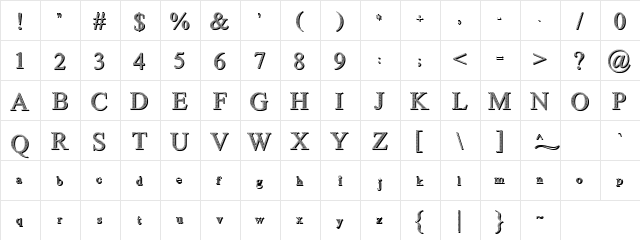
Candy_Girl_ Regular
| Foundry | Mighty Pete |
Design Context for Candy_Girl_ Typeface
Candy_Girl_ offers clean, dependable letterforms without strong stylistic allegiance, making it a practical choice for designers who need flexibility.
Pro Tip: Use Candy_Girl_ in both headline and body roles to test its range before committing to a single application.